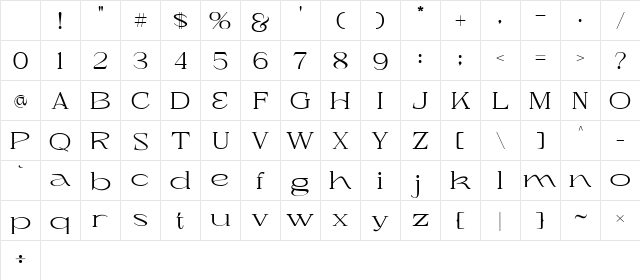
Muifamoso Demo Thin is a composed and adaptable typeface that performs quietly and consistently across a wide range of design contexts. Its slender proportions lend an understated elegance to any composition.